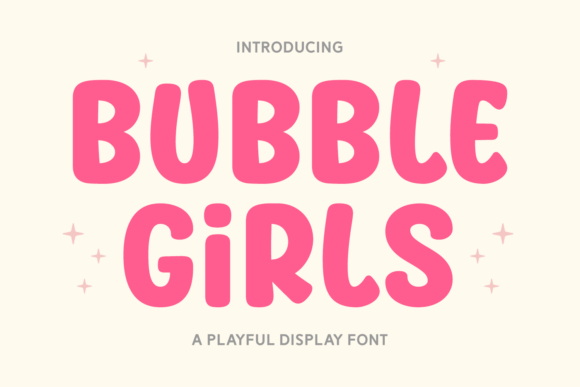
Bubble Girls Font: Add a Touch of Whimsy to Your Designs
Are you looking for a font that can add a dash of fun and playfulness to your designs? Look no further than the Bubble Girls font! This charming and bold bubbly display font is perfect for a wide range of creative projects, from logos and stickers to packaging designs, social media graphics, and more.
A Font with a Natural, Handmade Feel
Bubble Girls has a natural, handmade allure that makes it perfect for designers who want to add a touch of warmth and personality to their work. The font’s tidy, readable characters make it easy to use in a variety of contexts, from sentimental gift tags to cozy home decor. With Bubble Girls, you can morph your correspondence into a delightful visual treat that’s sure to bring a smile to your audience’s faces.
One of the best things about the Bubble Girls font is its versatility. It’s ready to use in any project, whether you’re a designer, crafter, or DIY enthusiast. Here are just a few ideas for how you can use this font:
- Logos: Add a touch of whimsy to your brand’s logo with the Bubble Girls font.
- Stickers: Create fun and playful stickers for kids or adults with this font.
- Packaging designs: Add a personal touch to your product packaging with the Bubble Girls font.
- Social media graphics: Use this font to create eye-catching social media graphics that will help your brand stand out.
- News editors: Add a playful touch to your news articles or blog posts with the Bubble Girls font.
- Comics and cartoons: This font is perfect for creating fun and playful text for comics, cartoons, or animated videos.
- T-shirts: Use the Bubble Girls font to create fun and playful designs for t-shirts or other apparel.
- Posters and magazines: Add a touch of whimsy to your posters, magazines, or books with this font.
- YouTube and Instagram: Use the Bubble Girls font to create eye-catching titles or graphics for your YouTube videos or Instagram posts.
- Websites: Add a personal touch to your website with the Bubble Girls font.
Why Choose the Bubble Girls Font?
So why choose the Bubble Girls font for your next project? Here are just a few reasons:
- Cuteness overload: This font is designed to deliver your message with maximum cuteness, making every word feel like a sweet treat.
- Easy to read: Despite its playful feel, the Bubble Girls font is tidy and easy to read, making it perfect for use in a variety of contexts.
- Versatile: This font can be used in a wide range of projects, from logos and stickers to packaging designs and social media graphics.
- Handmade feel: The Bubble Girls font has a natural, handmade allure that makes it perfect for designers who want to add a touch of warmth and personality to their work.
Tips for Using the Bubble Girls Font
Here are a few tips for getting the most out of the Bubble Girls font:
- Experiment with colors: This font looks great in a variety of colors, so don’t be afraid to experiment and find the perfect hue for your project.
- Mix and match: Try pairing the Bubble Girls font with other fonts or graphics to create a unique and eye-catching design.
- Keep it simple: While the Bubble Girls font is playful and fun, it’s still a good idea to keep your design simple and easy to read.
In conclusion, the Bubble Girls font is a charming and bold bubbly display font that’s perfect for designers and crafters who want to add a touch of whimsy to their work. With its natural, handmade feel and versatile design, this font is ready to use in any project. So why not give it a try and see how it can add a touch of fun and playfulness to your designs?